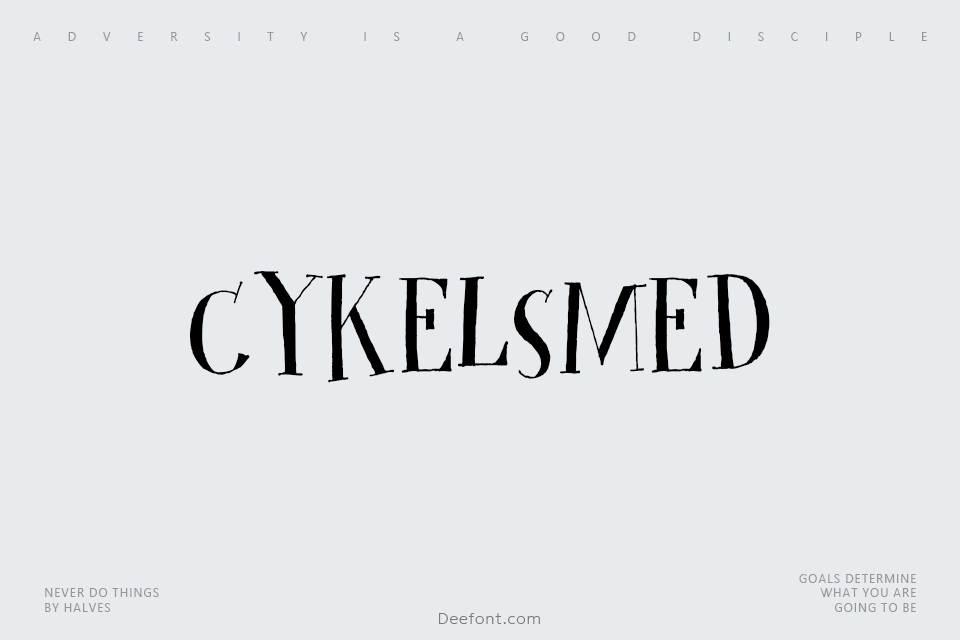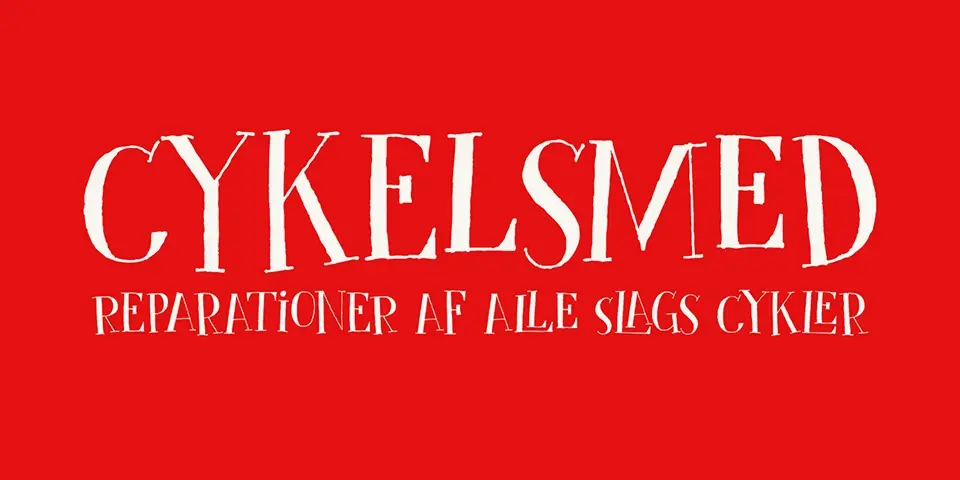
Cykelsmed Font
Cykelsmed is a quirky and playful display font designed by David Kerkhoff that brings personality and charm to your creative projects. Inspired by a Danish bicycle repair man’s spirit, this jumpy, happy font is perfect for book covers, branding, and eye-catching headlines. With comprehensive ligatures and extensive diacritics support, Cykelsmed combines hand-drawn character with professional functionality, making it ideal for designers seeking distinctive typography that stands out with style and creative flair.